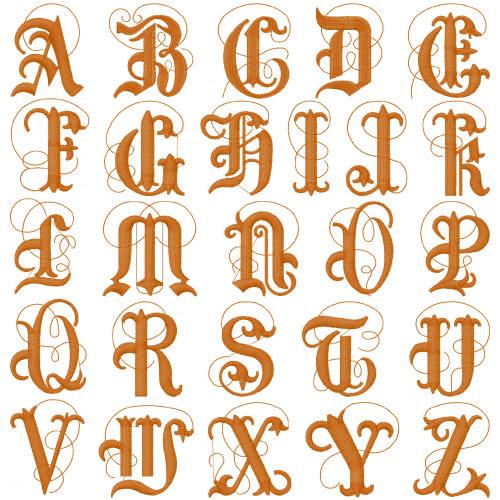
Embroidery Patterns is happy to present Colonna machine embroidery font which has Decorative script machine embroidery font with flowing details in rich orange, ideal for personalized throw pillows and home decor items. Available in PES, DST & 9 other formats. included. If you would like to view more embroidery fonts and alphabets please search our embroidery fonts page.